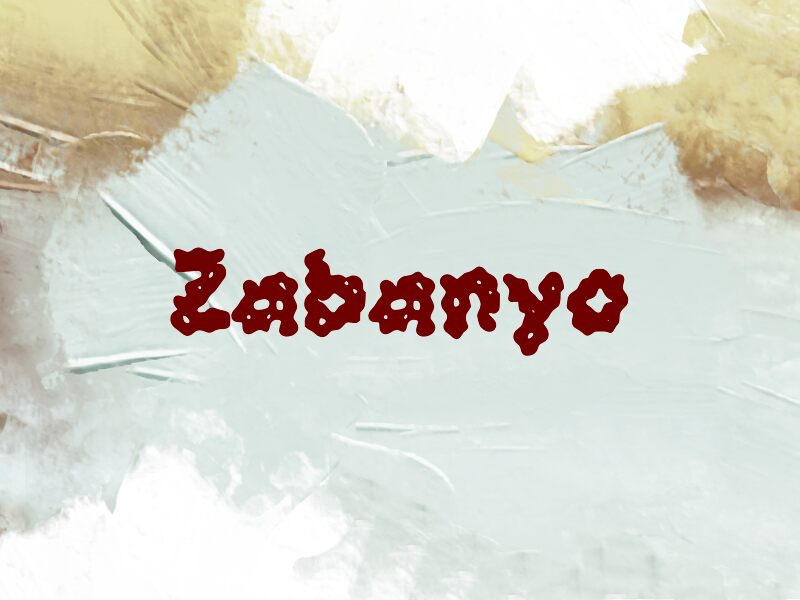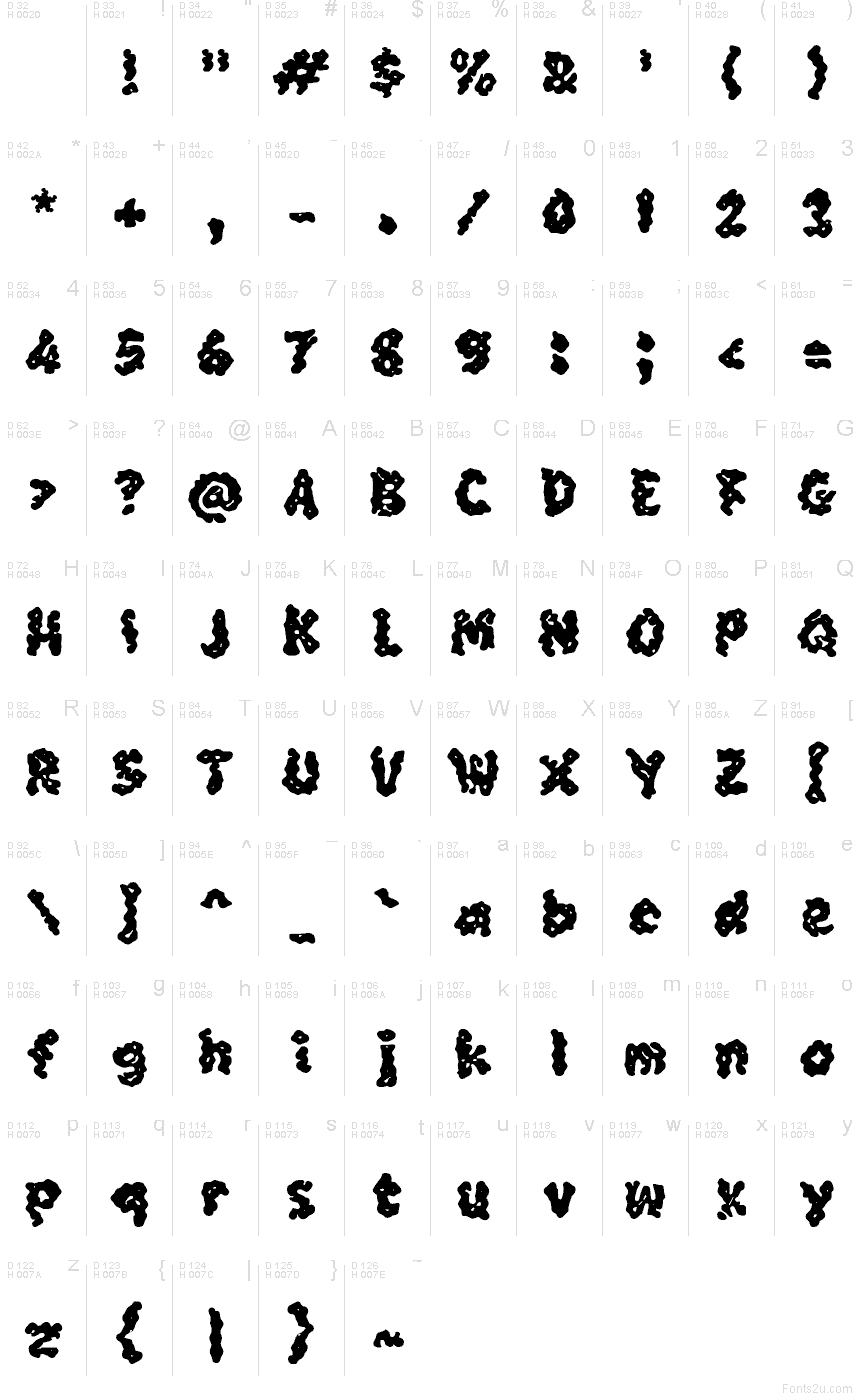
Zabanyo, from Wep, is a free biomorphic display font with letters that look poured, puffed, and slightly unstable. Its soft blob shapes, punched-through holes, and lumpy silhouettes give it a cartoon-graffiti feel that is more creature-like than geometric, so the font reads playful first and structured second.
That makes it a strong fit for poster titles, music artwork, zines, streamer graphics, and packaging where the lettering can act like part of the illustration. As a free font, Zabanyo also suits short cover lines, logo sketches, and title cards, especially when you want the word itself to feel gooey, odd, and alive.
Zabanyo
Zabanyo font presentation and specimen
Zabanyo font character map
Zabanyo font character map: Basic Latin, page 1
Glyphs in the Zabanyo font — Basic Latin, page 1